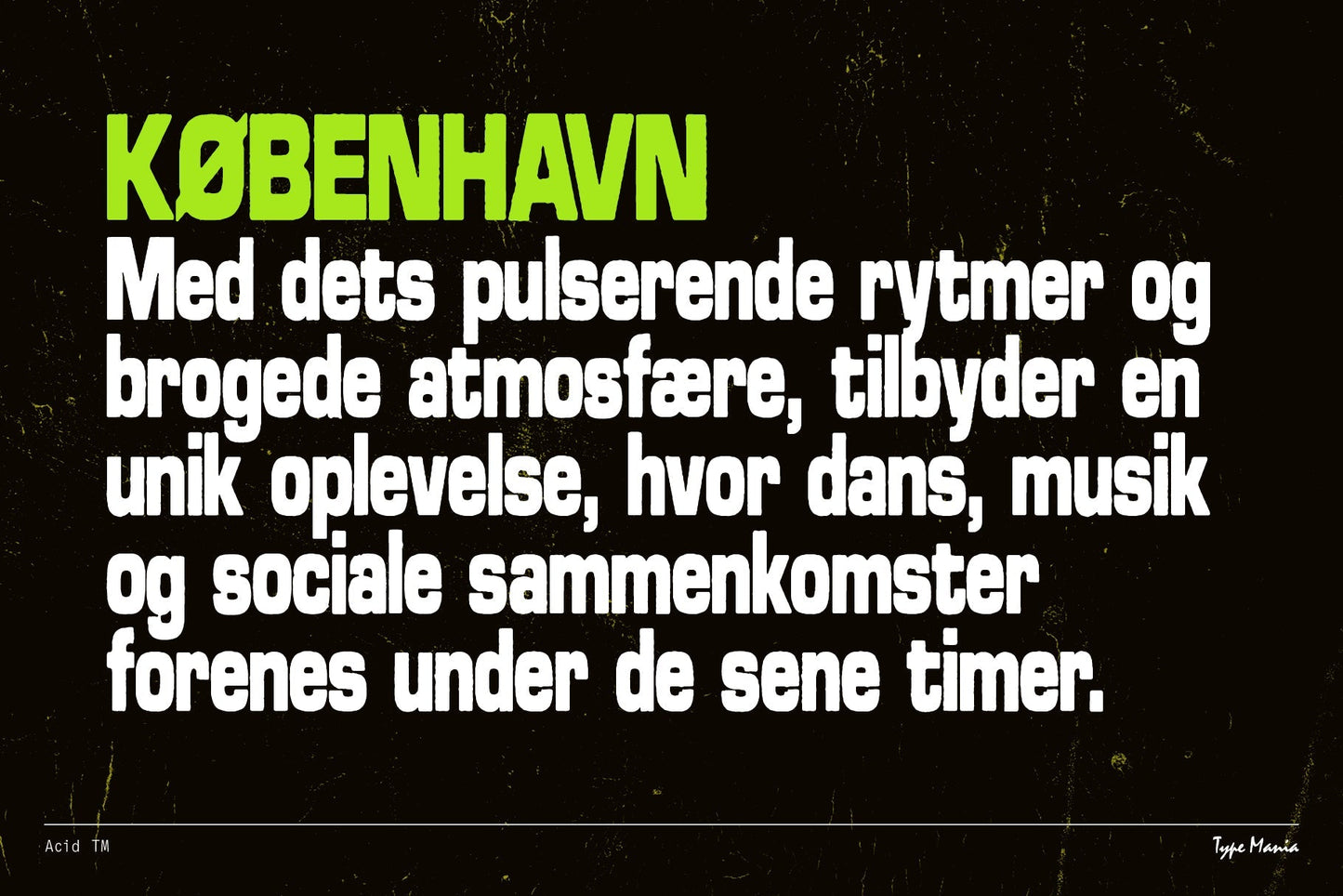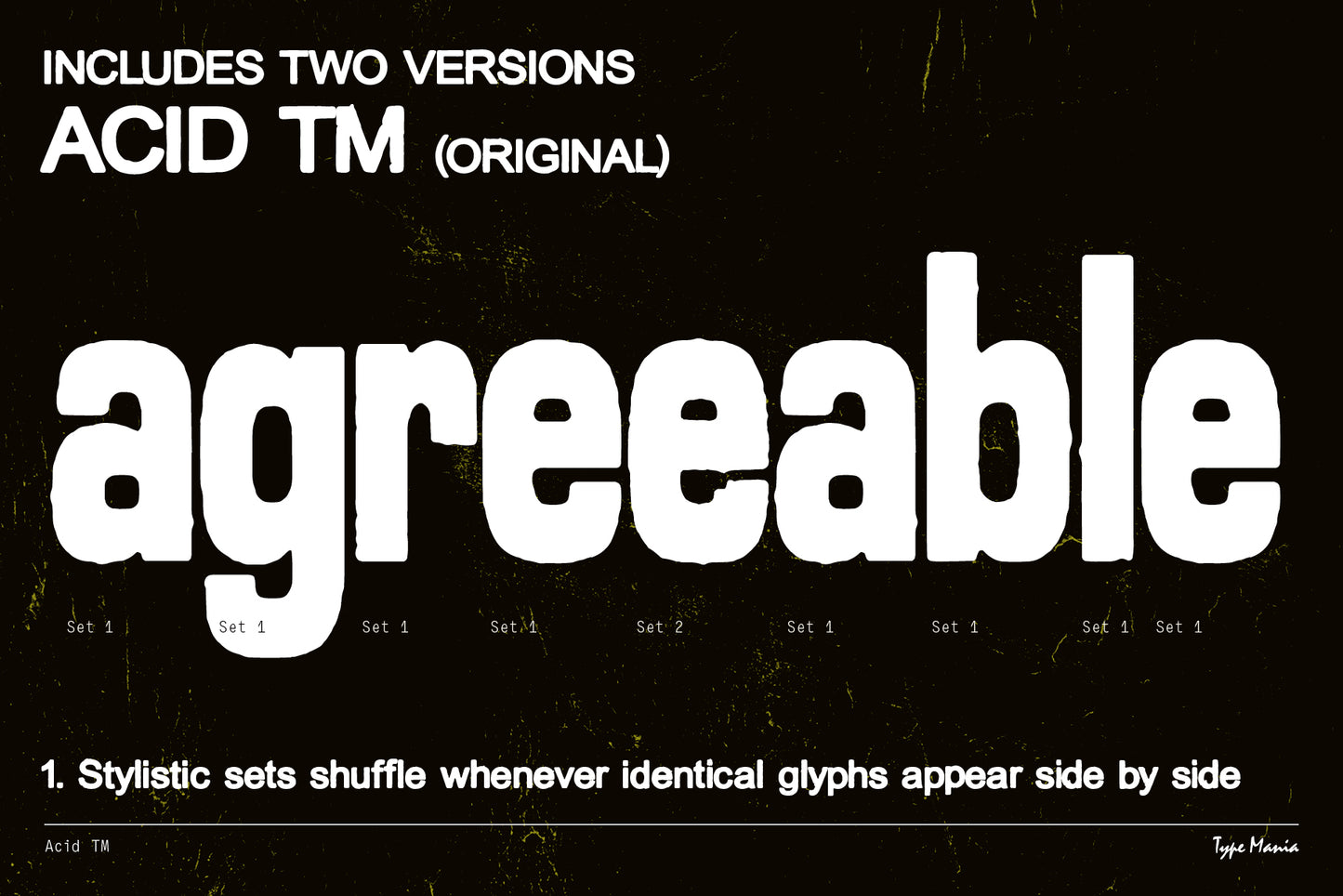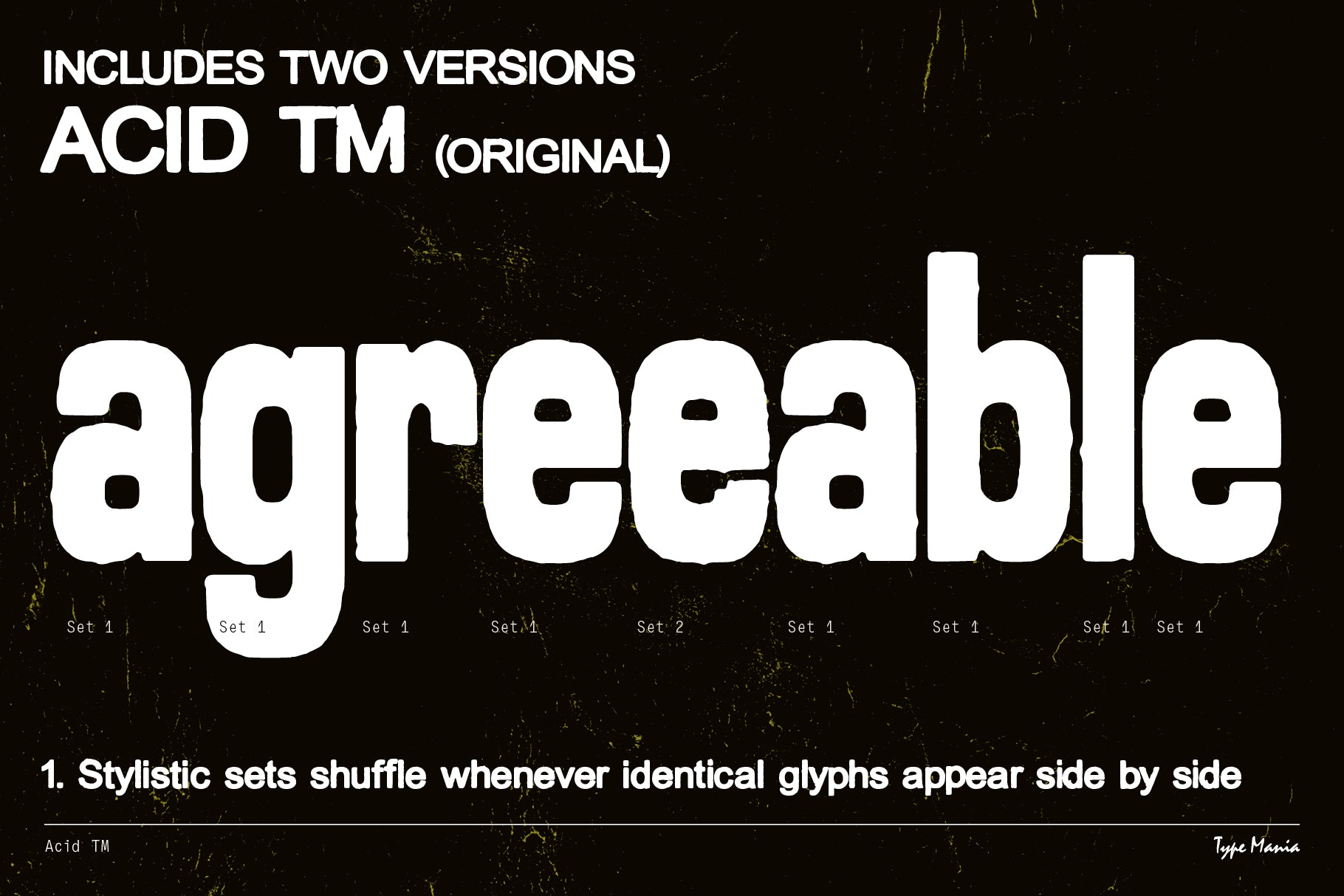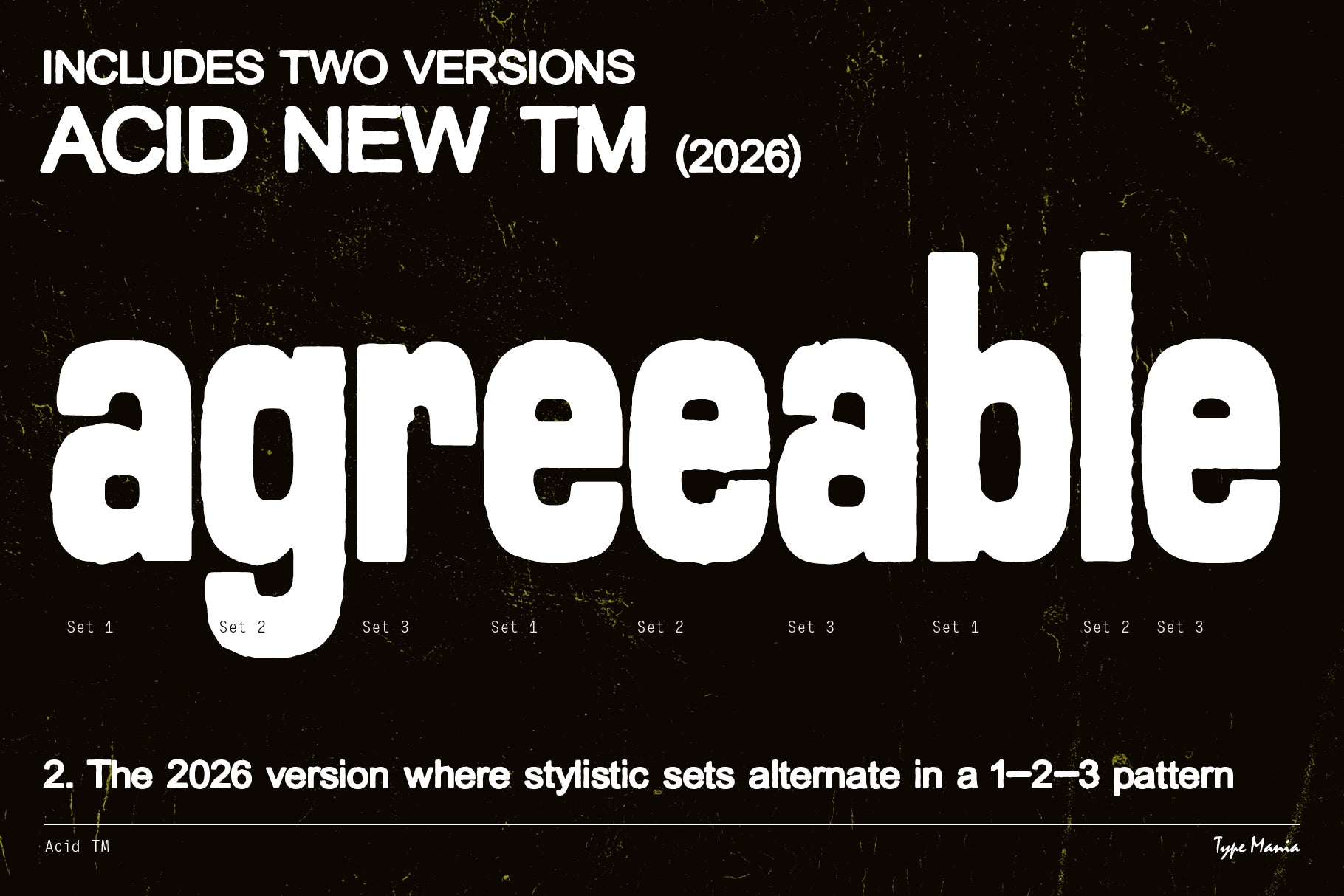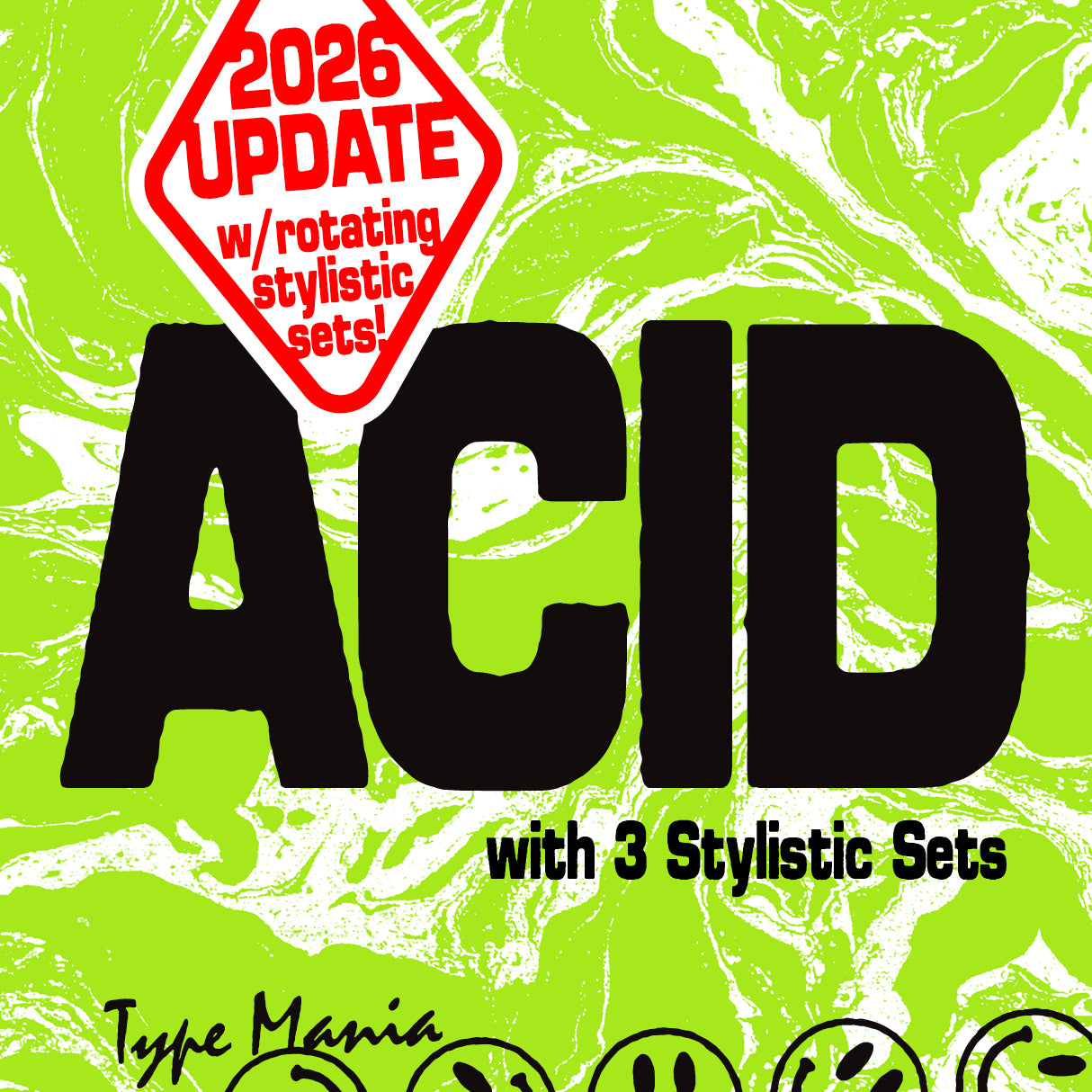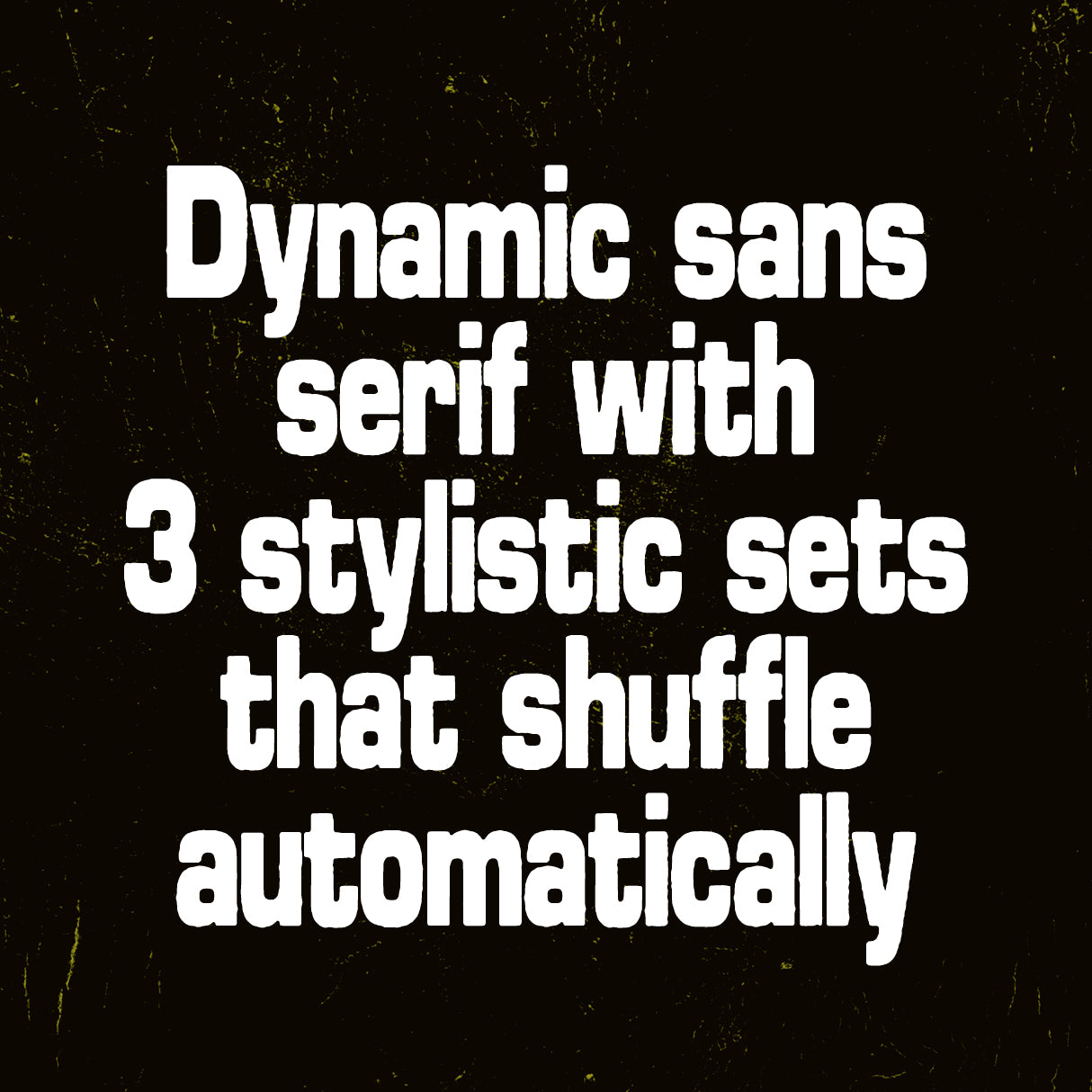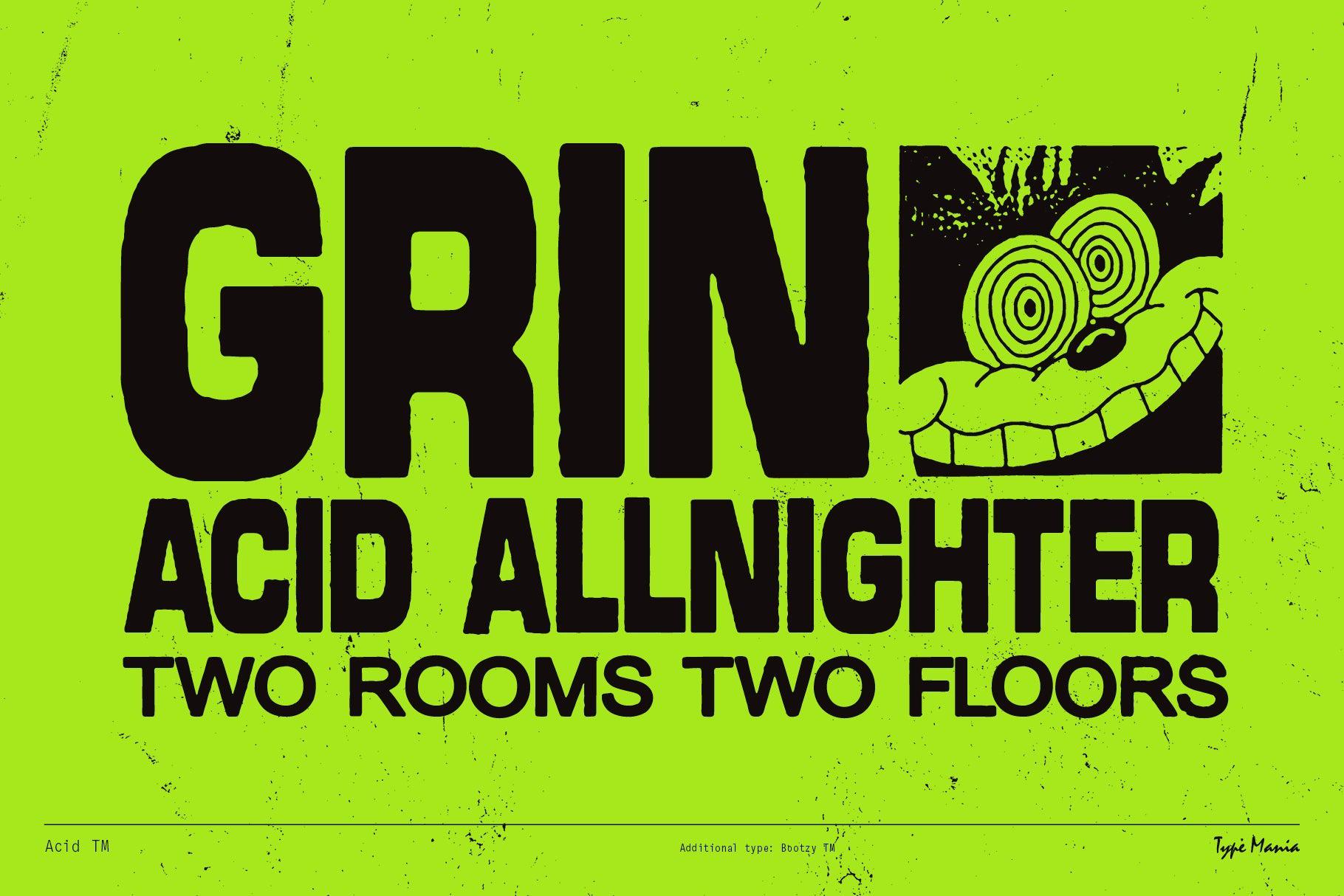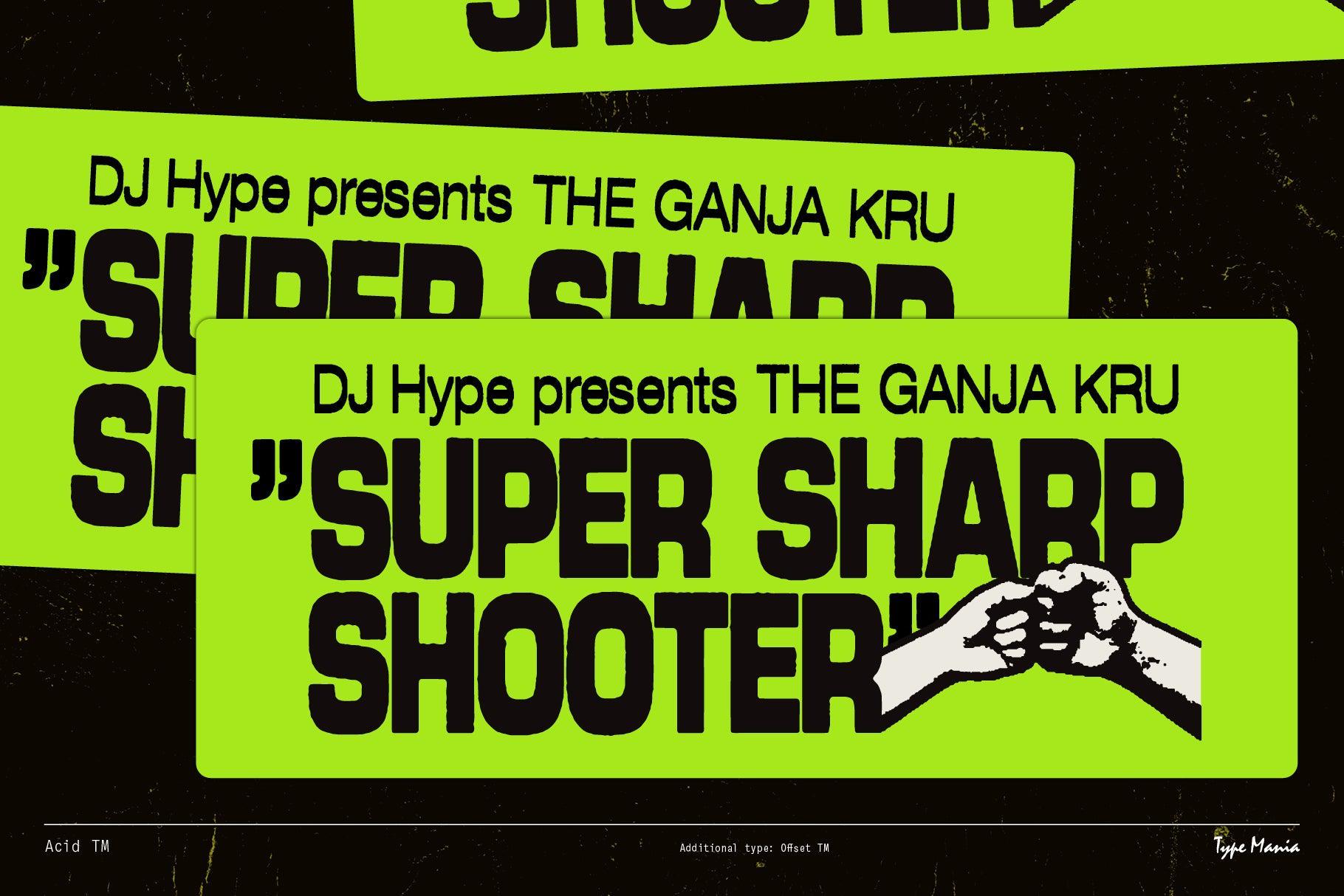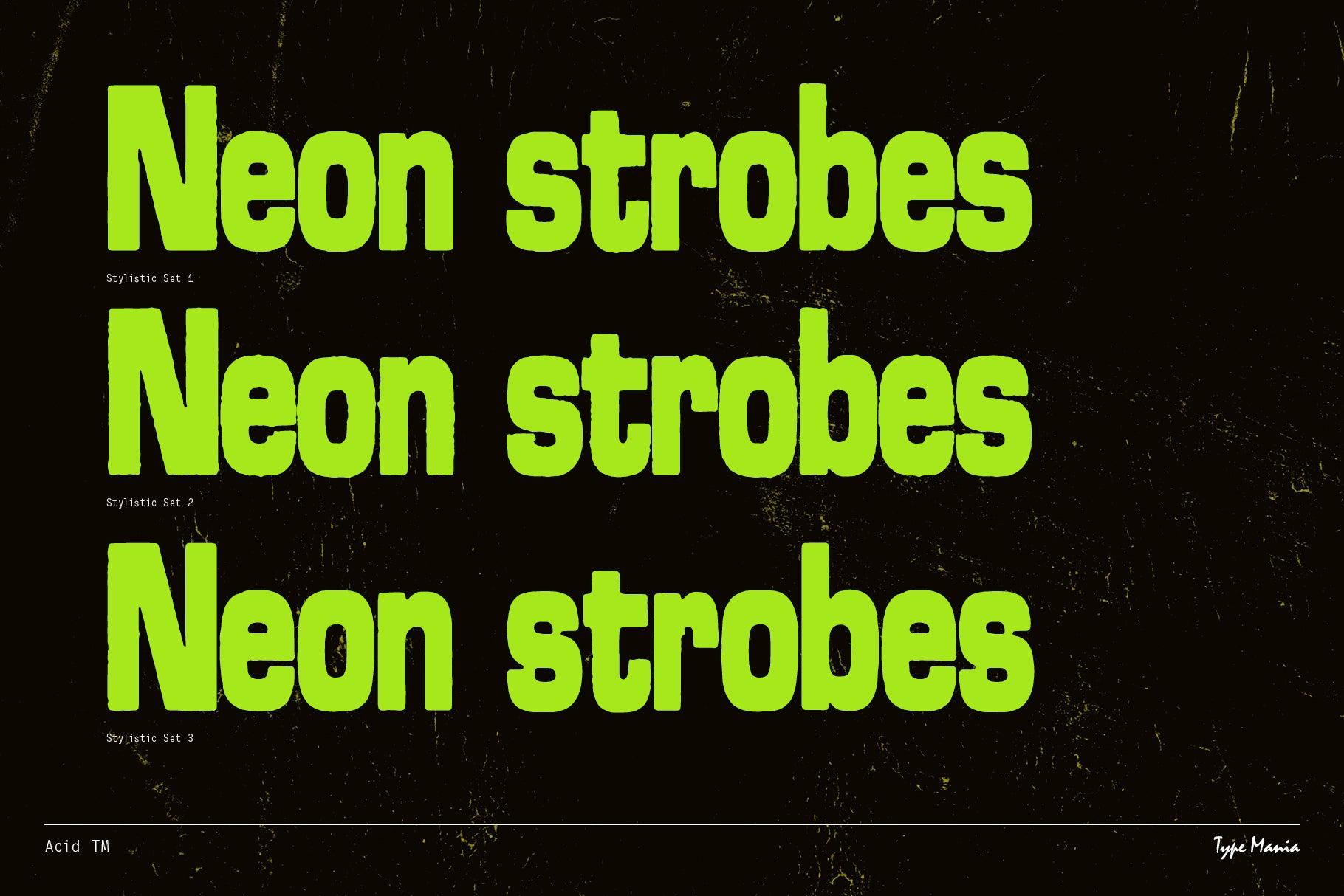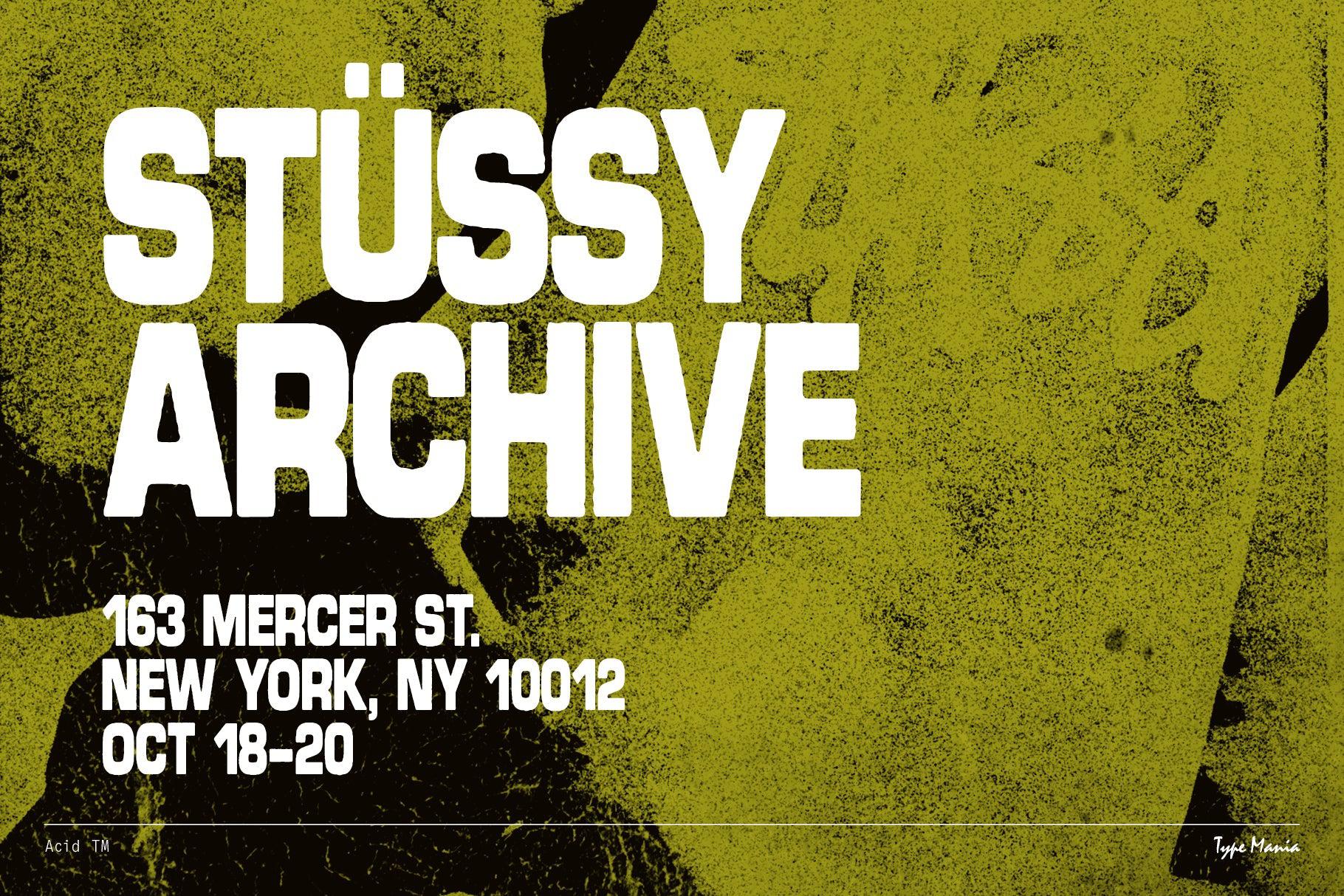
Acid TM
Acid TM is a rugged geometric sans serif. Perfect for your flyer, record cover or t-shirt design. It includes three stylistic sets of all the essential glyphs, which shift automatically to add character and texture.
- 3 stylistic sets
- Includes two versions of the font: 1. Stylistic sets shuffle whenever identical glyphs appear side by side, 2. A new version where stylistic sets alternate in a 1–2–3 pattern, when the Contextual Alternates is turned on.